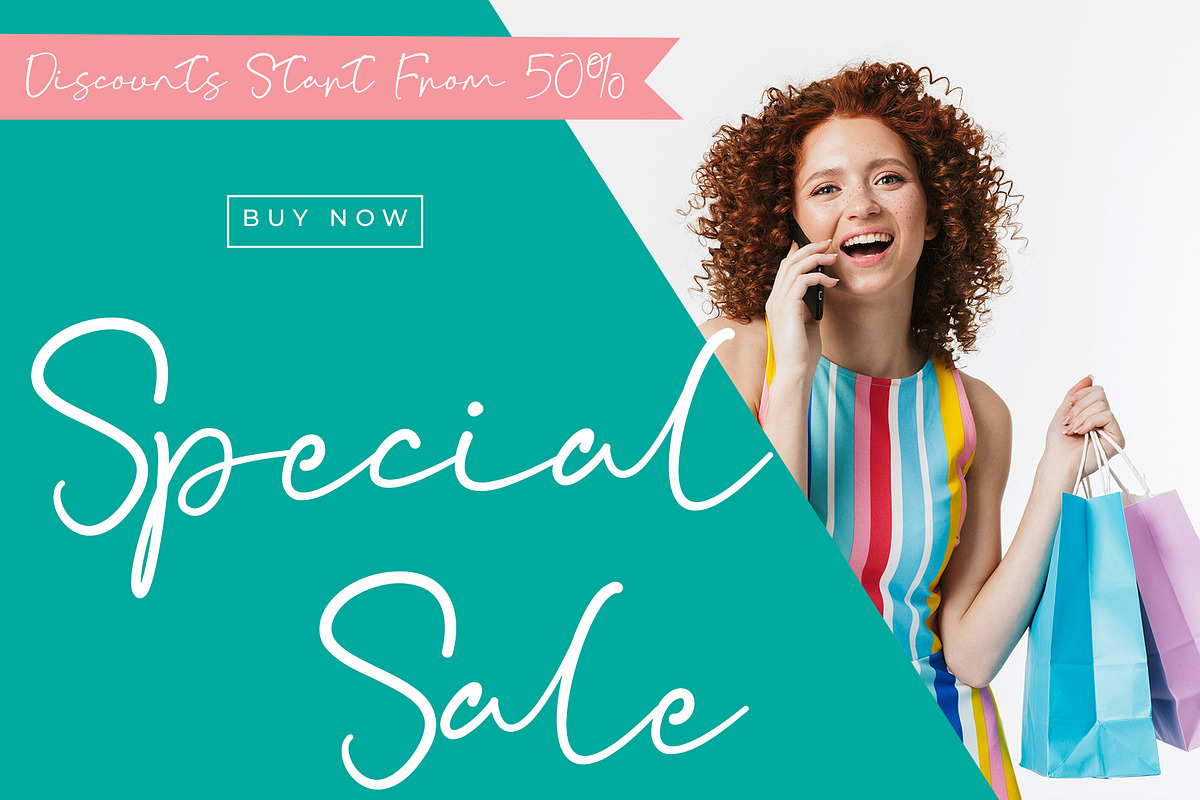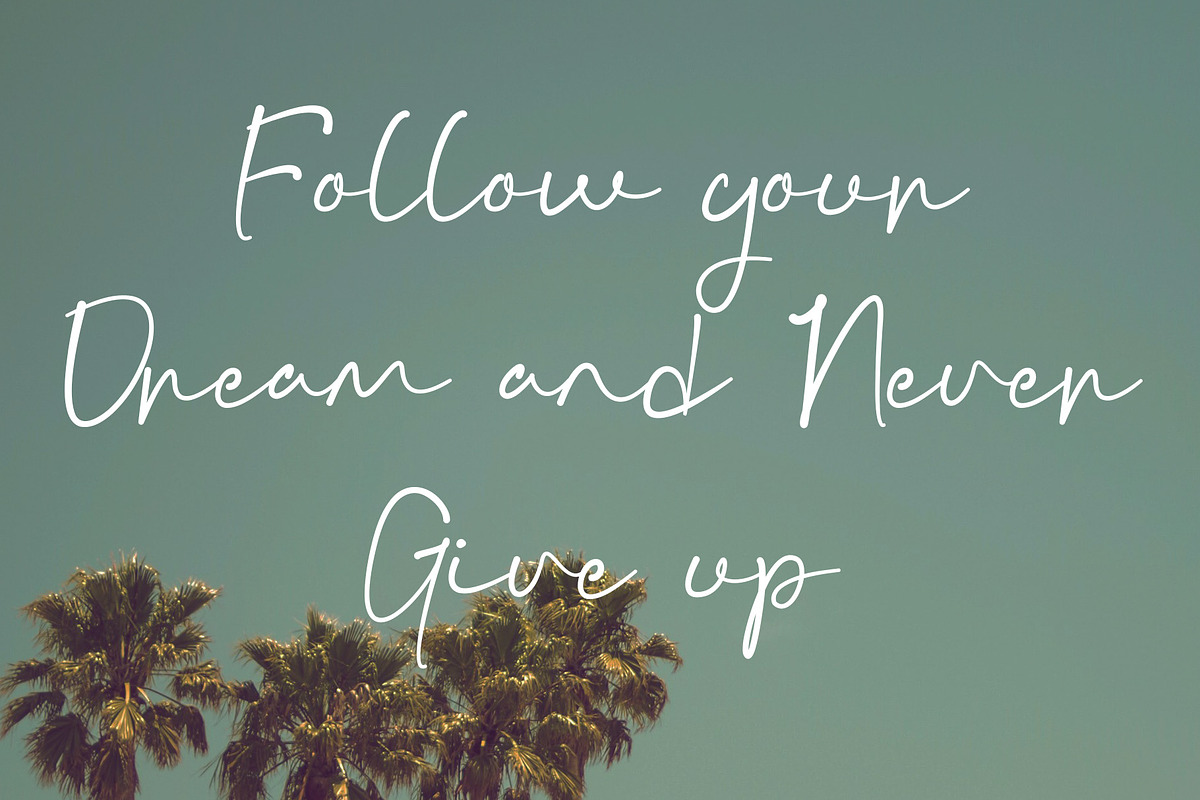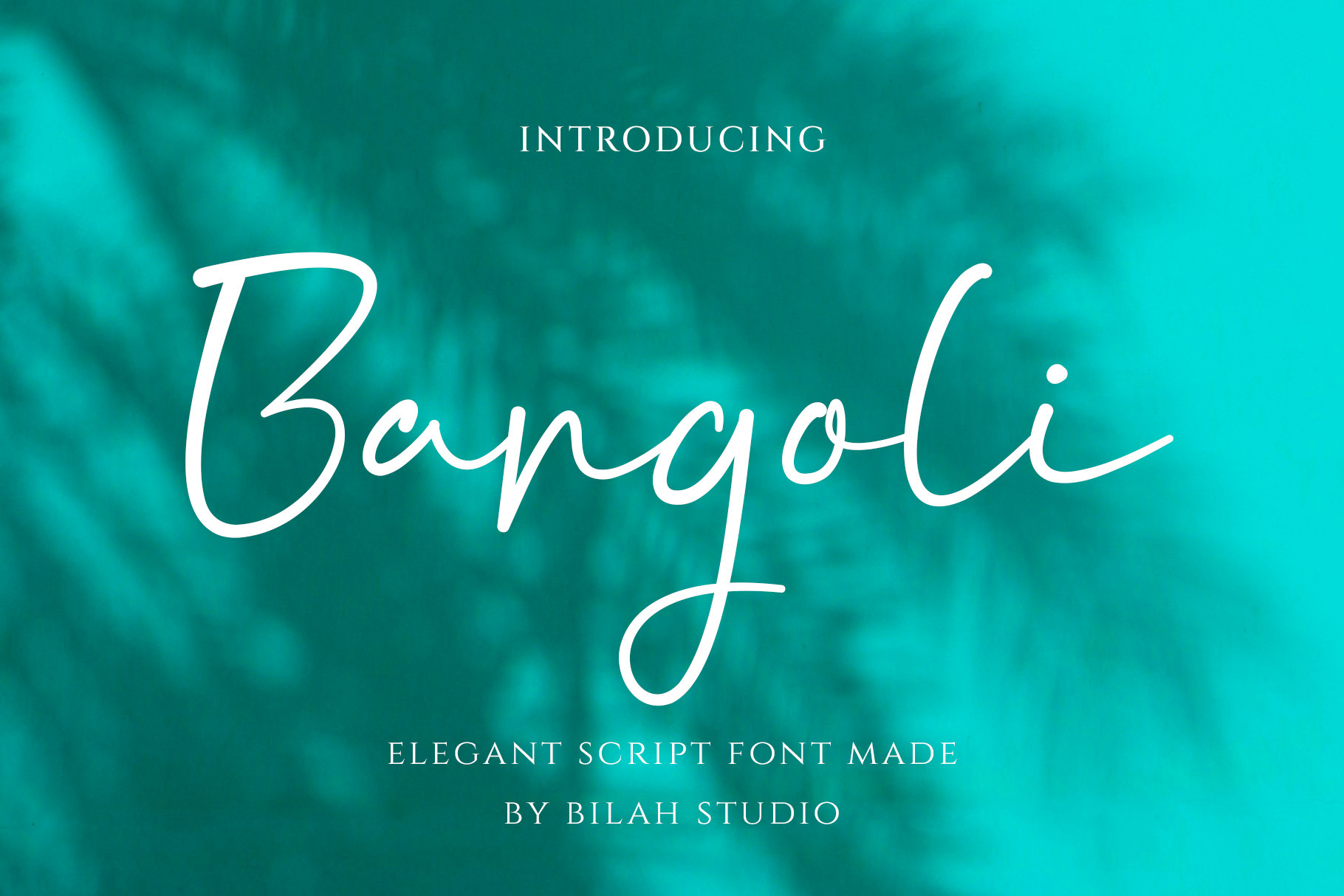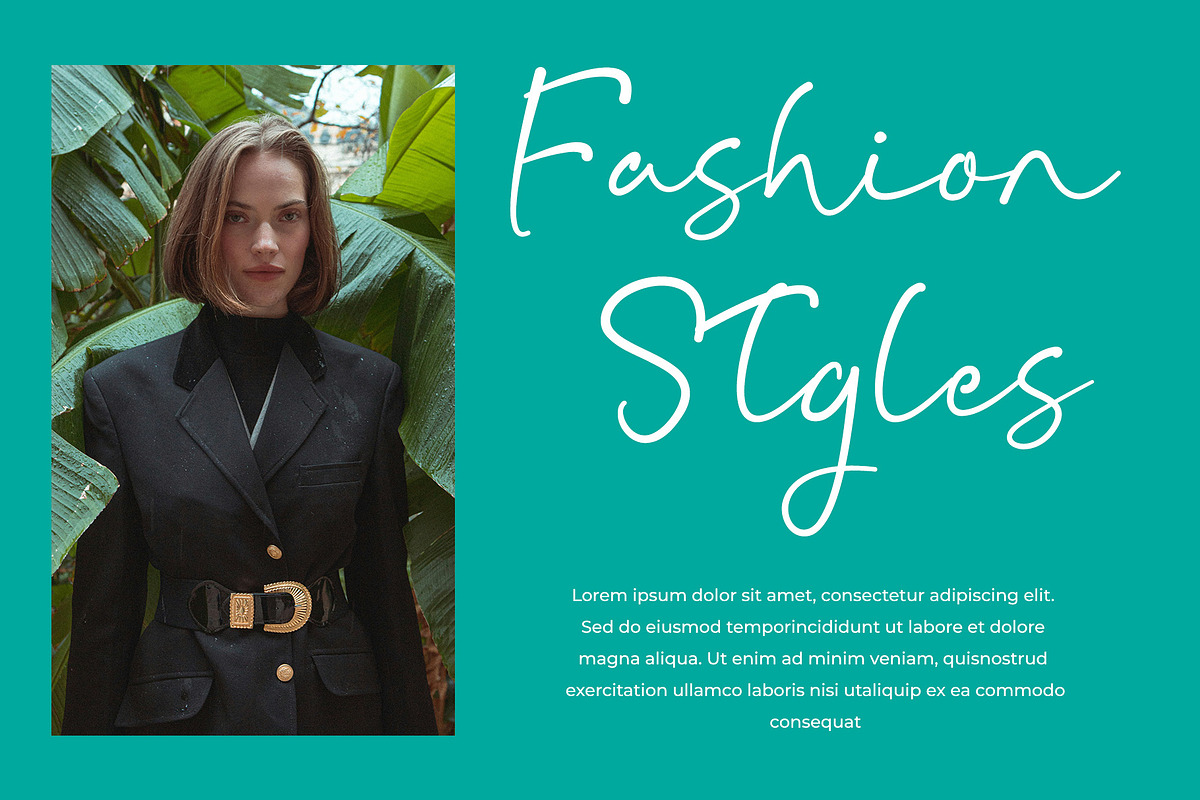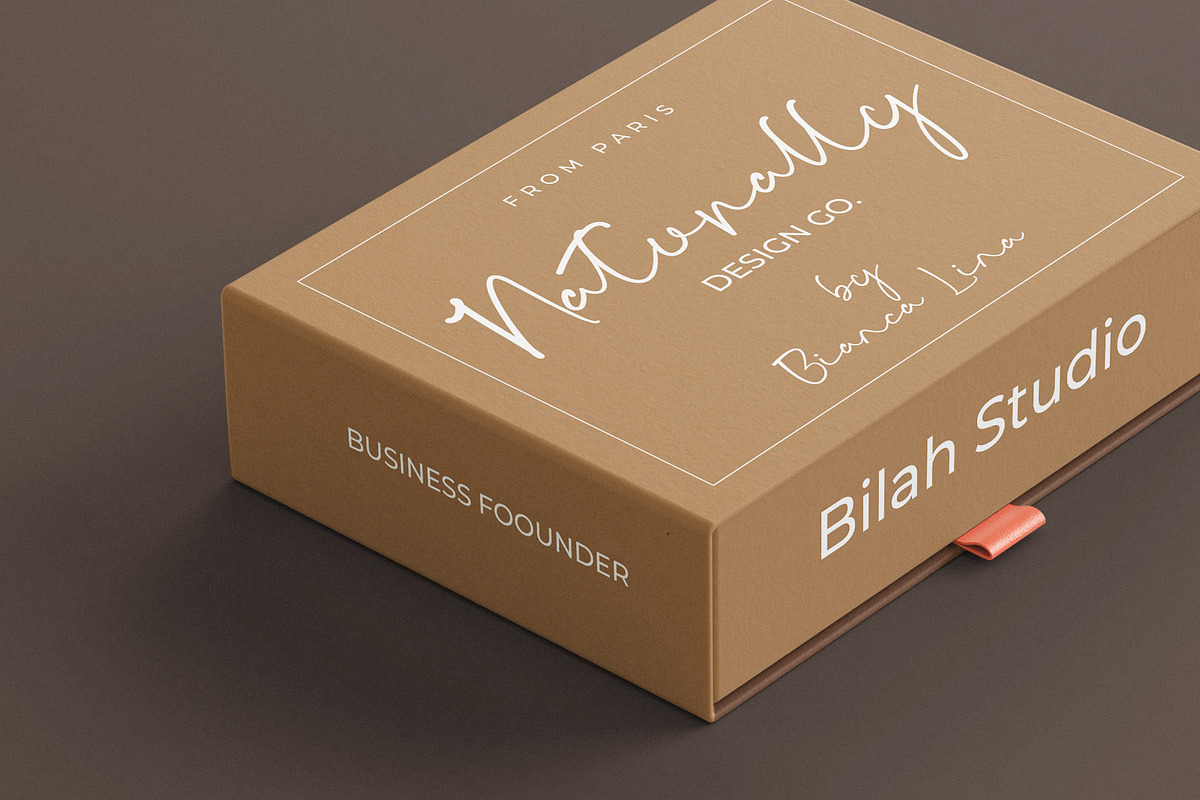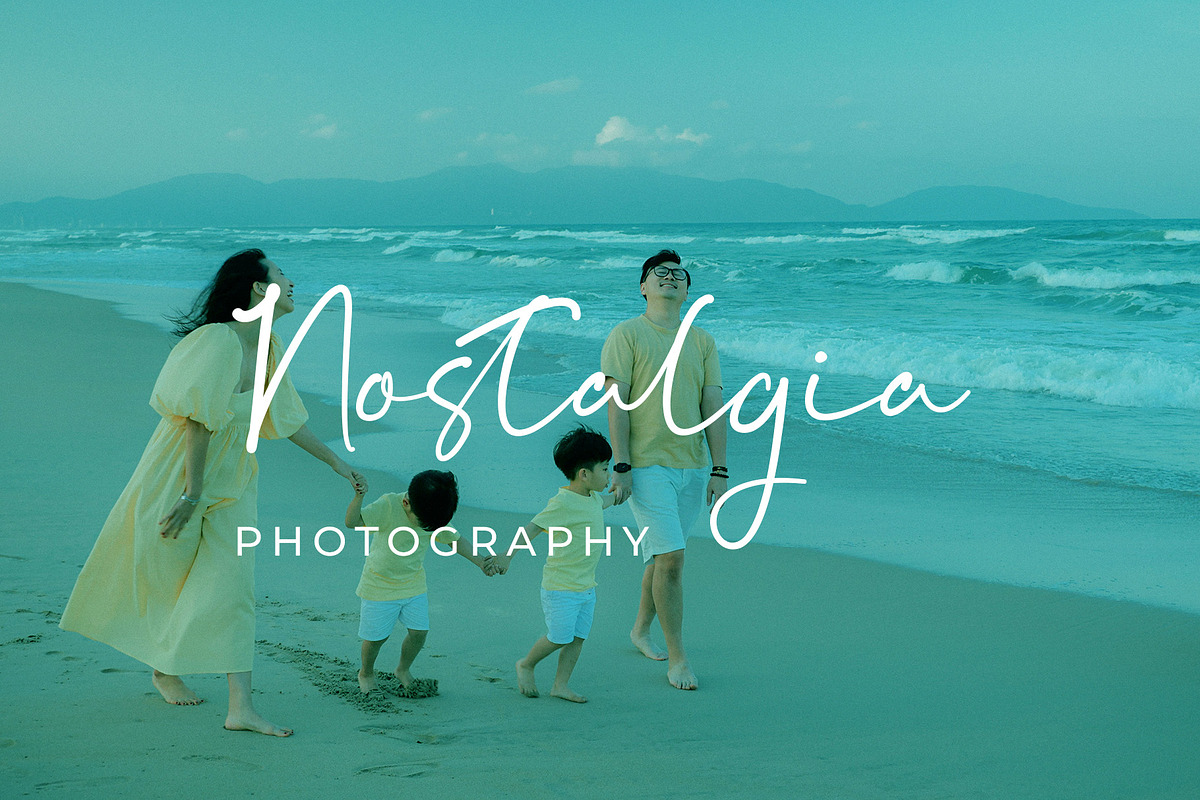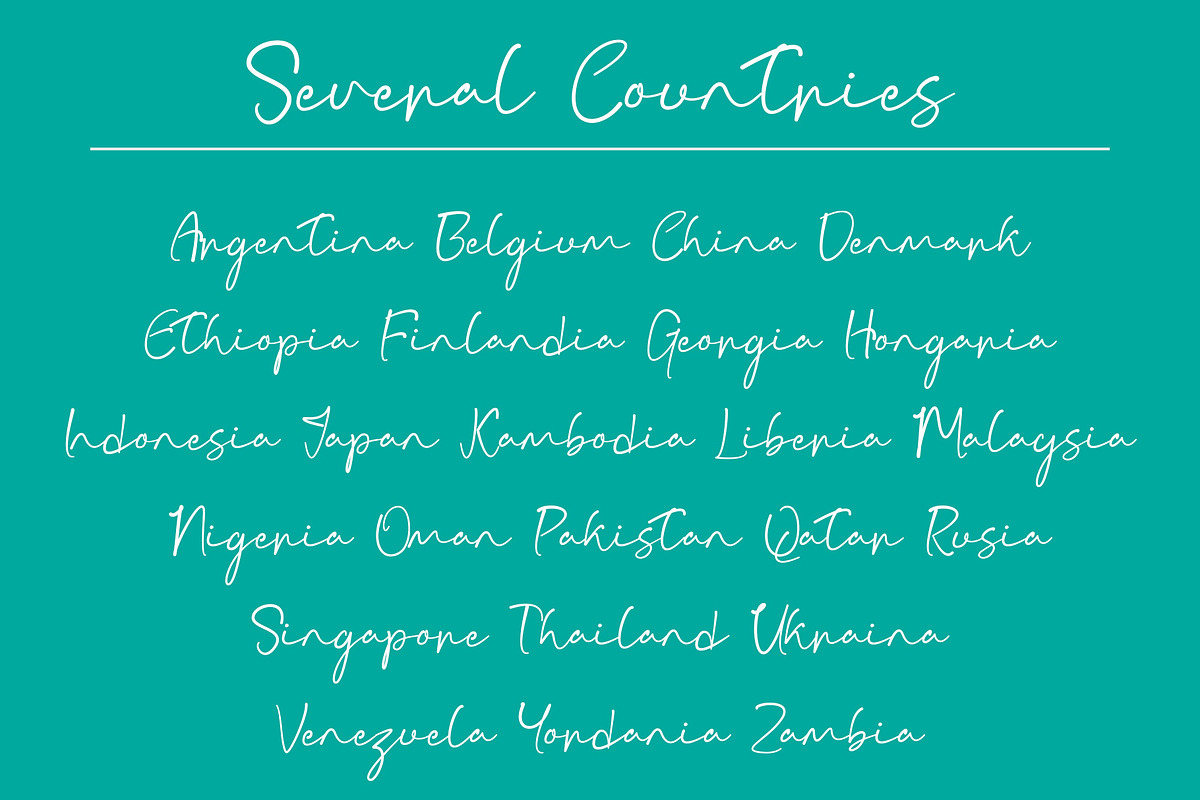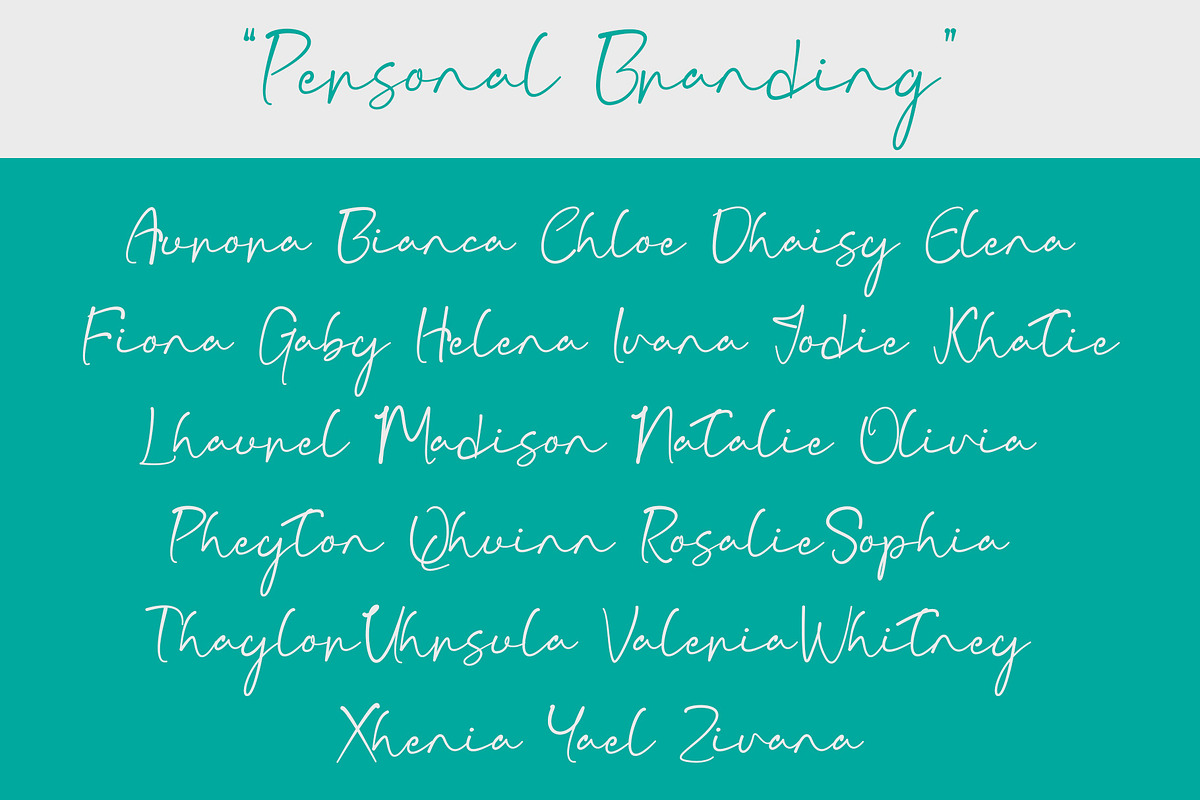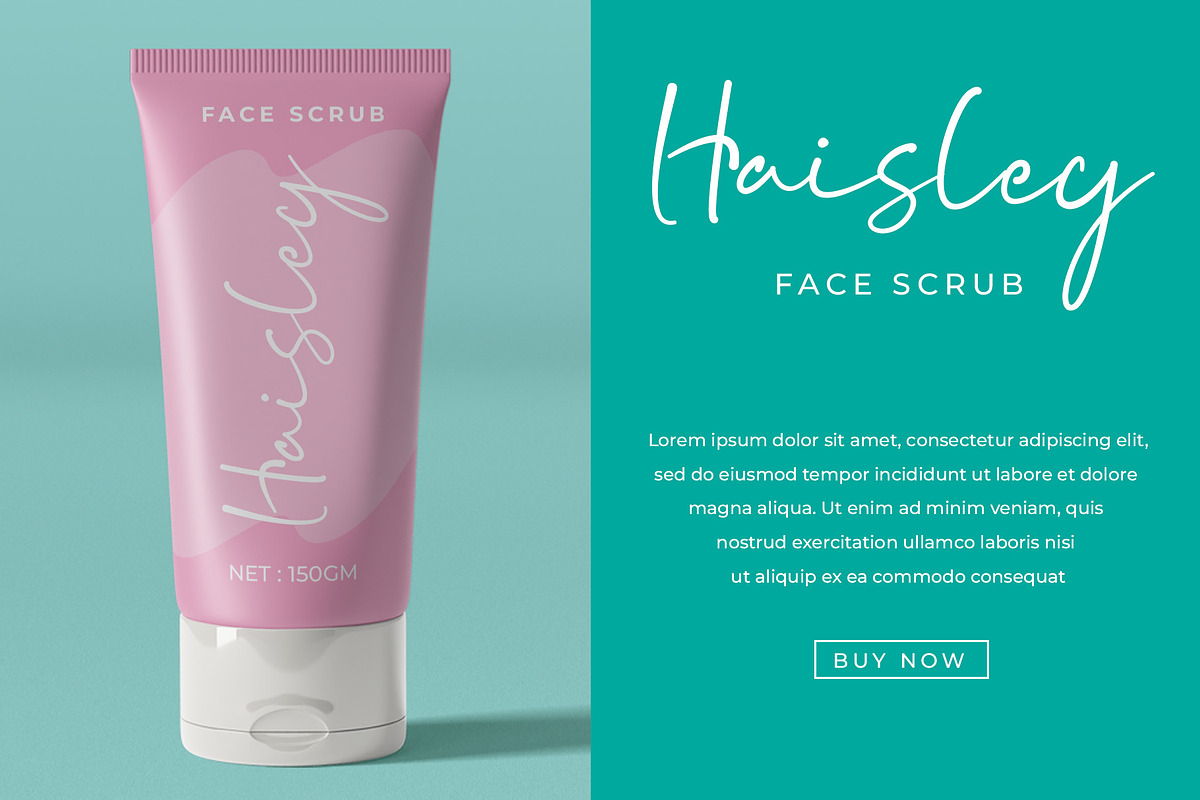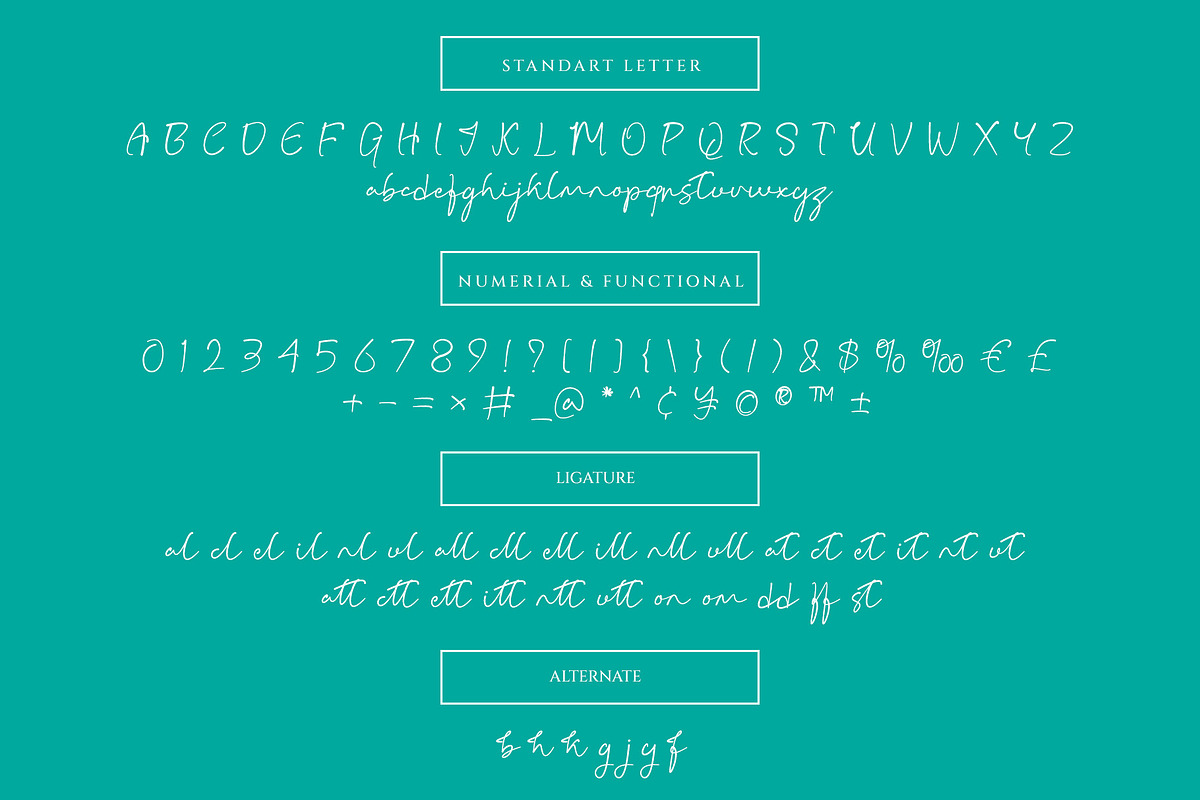
Bargoli Elegant Script Font
Bargoli is a font with an elegant style that conveys a professional yet minimalist feel. We designed it to be elegant, luxurious, premium, modern, legible, stylish, feminine, charming, and eye-catching, as well as easy to use. Bargoli is an excellent choice for photography watermarks, signature designs or logos, quotes, album covers, magazines, business cards, and various other design projects. Bargoli is here to elevate your work and ideas to the next level.
Standart Glyphs
Numberial and Functional
Alternate and Ligature